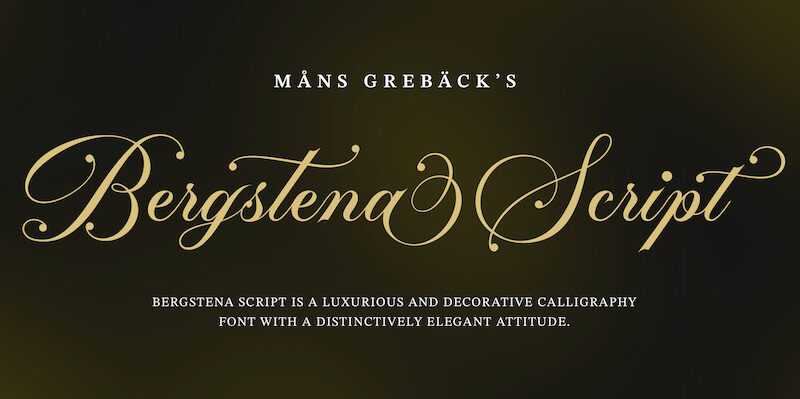
Bergstena Swashed font by Mans Greback is a free swashed calligraphy font. Built within the Bergstena family, it stands out for its theatrical loops and sweeping curves, with sculpted capitals and a smooth, legible lowercase that glides like fresh ink. The strokes snap from hairline to thick with elegant tension, giving headlines a lavish, ceremonial rhythm.
Using Bergstena Swashed, flourishes frame space beautifully on wedding invitations, boutique logos, certificates, wine labels, event signage, and luxury packaging. This free font shines on book covers and editorial nameplates where drama matters. Pair it with a quiet modern sans for body copy, and set the script large to let those swashes breathe.